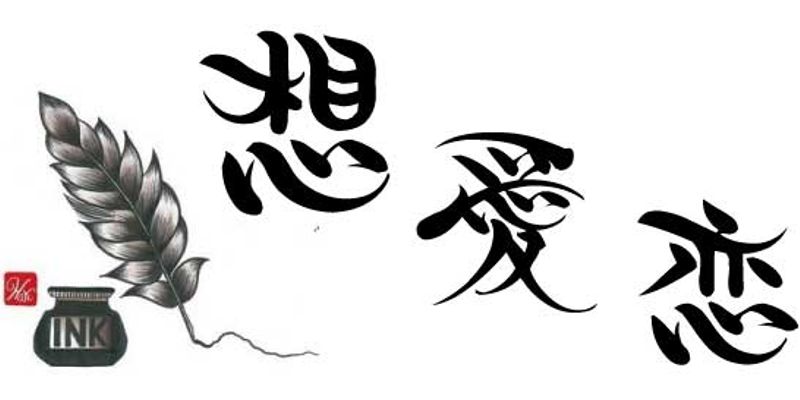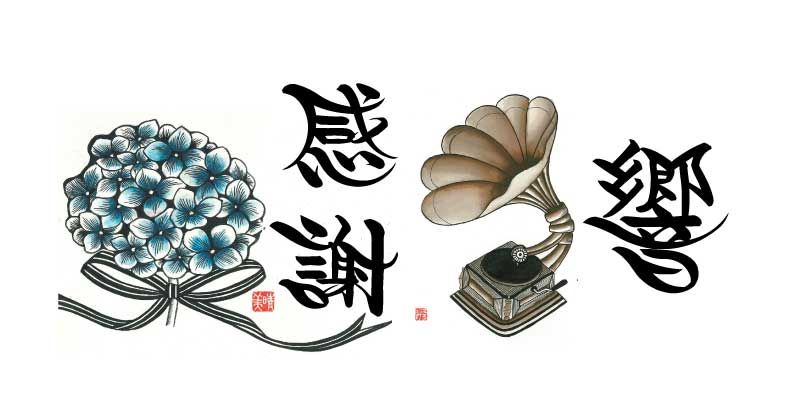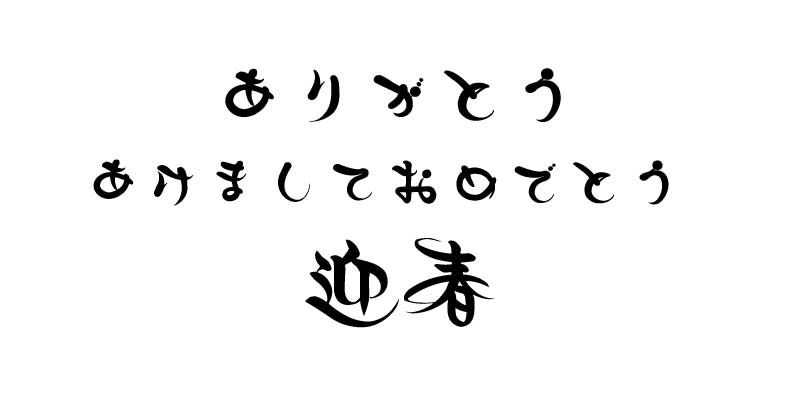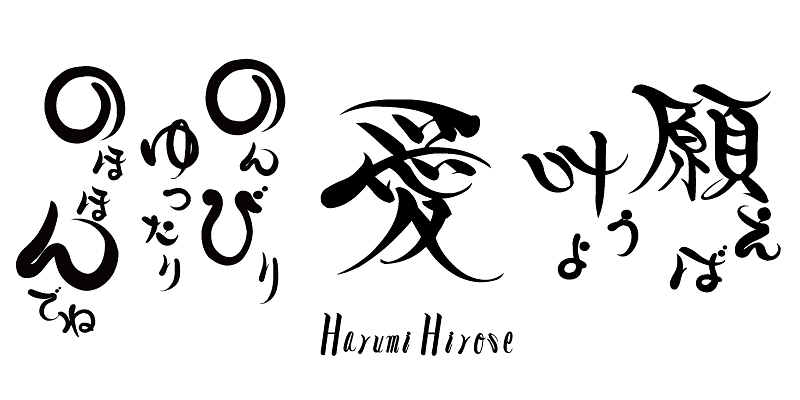
AB-Harumi is a brush-script typeface, which gives a sense of dynamic strength, and the strokes have soft, flexible and elegant curves. The sophisticated design is based on a free and unique view of the world.
This series of fonts contains original hand-written Japanese typefaces based on pen calligraphy released in 2002. With a warm-hearted look, these fonts will draw the reader’s eye to key points of a design.